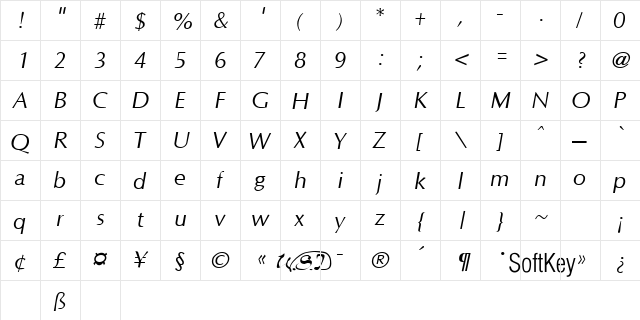
Optim Italic
Design Context for Optim Typeface
Optim takes a measured approach to typography — its balanced proportions and neutral character make it a reliable workhorse for both digital and print work. The slanted form adds forward momentum and visual energy.
Pro Tip: Try Optim for annotation and caption copy alongside an upright companion — the contrast in angle creates a dynamic but ordered typographic system.